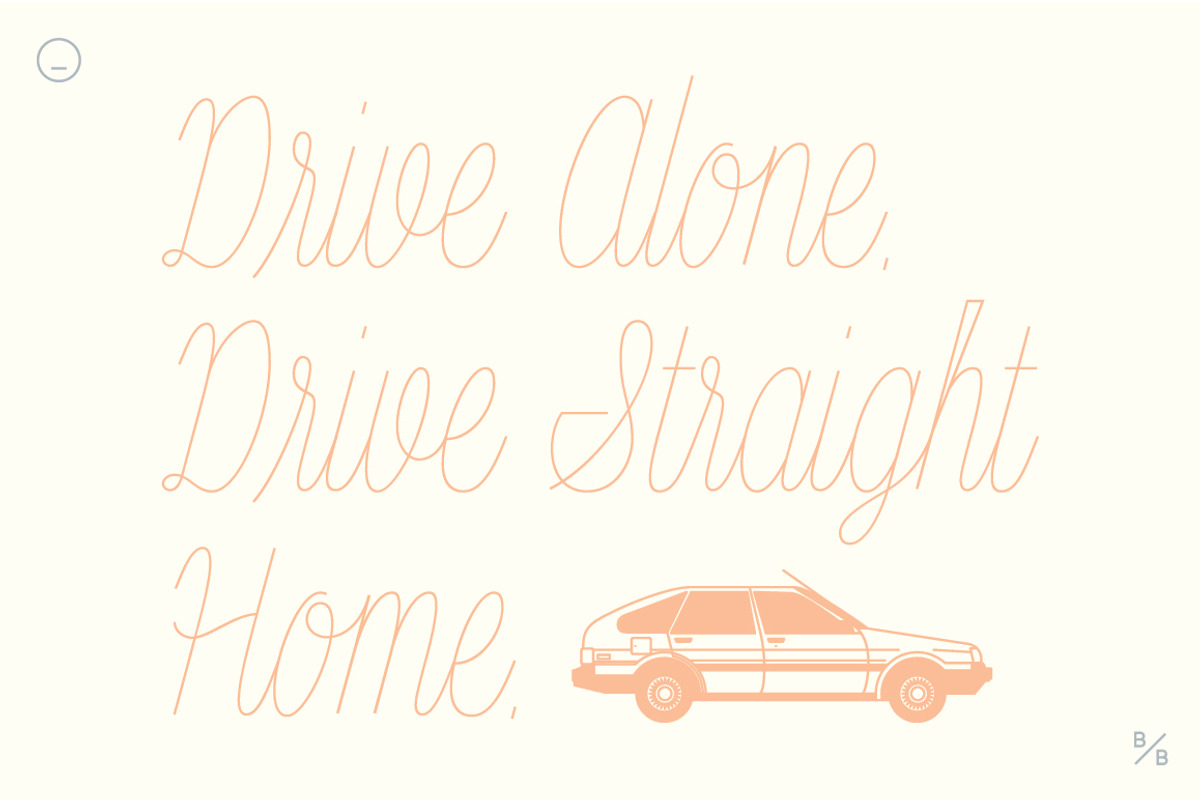
Quatre
Quatre is a clean, friendly, monoline display script with a number of subtle but significant features. Originally based on the style of cursive you may or may not have been taught in middle school, Quatre has a clean geometric flow to it while containing a robust set of OpenType features such as ligatures, swash capitals, and stylistic alternates that give it a unique look.
With over 700 glyphs, coverage for over 30 languages, arbitrary fractions, contextual alternates and more, Quatre will have you covered for whatever situation you may run into. I mean, probably. I can’t know every single weird way you might be trying to use it. The point is, it’s got all of the bells and whistles you could reasonably hope for. Make sure you open up the OpenType panel in Illustrator, Photoshop, and InDesign to make use of all of those features.